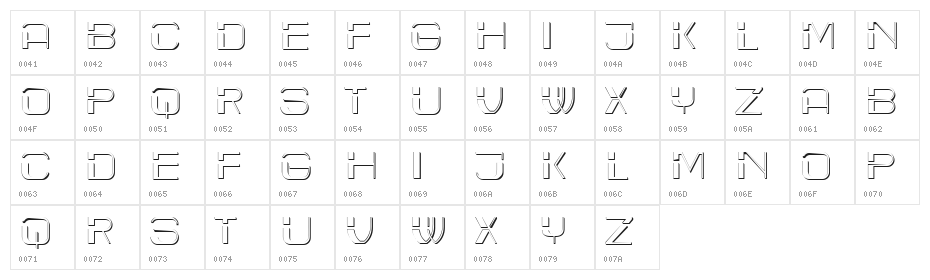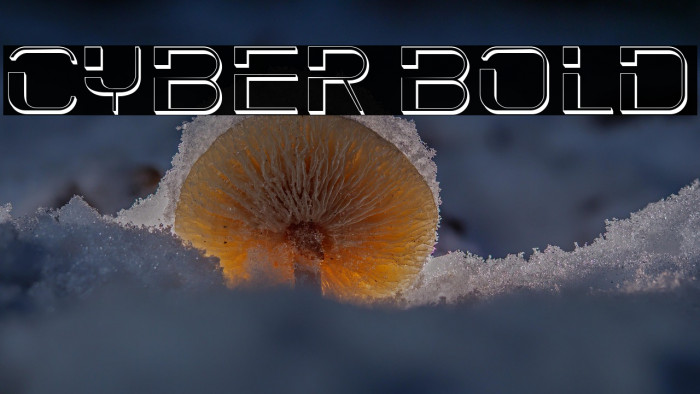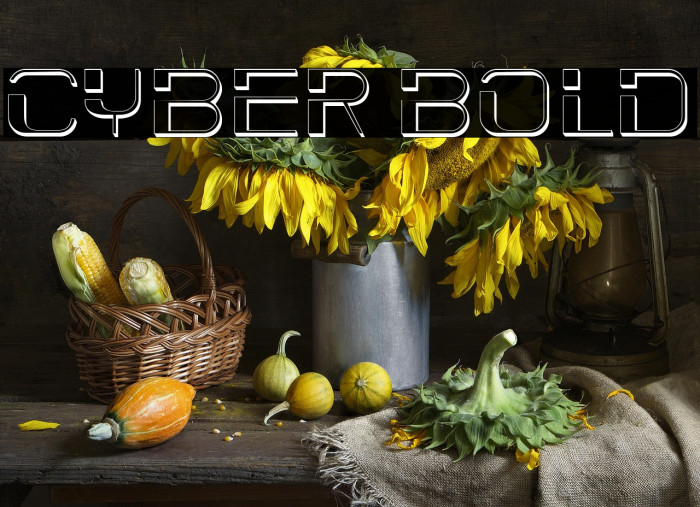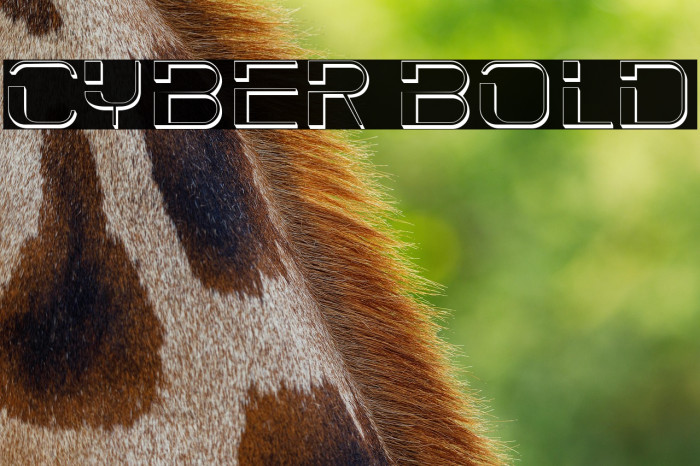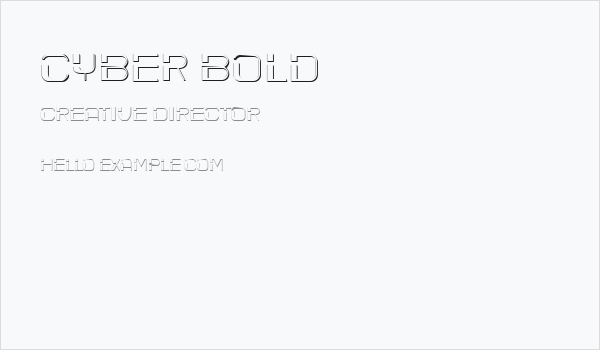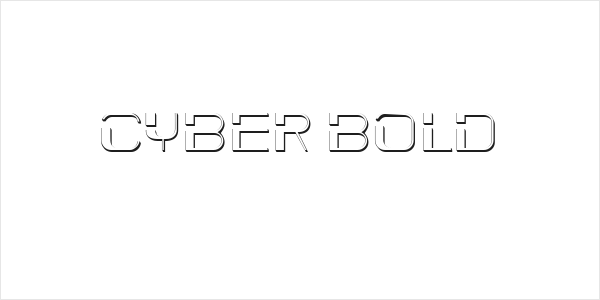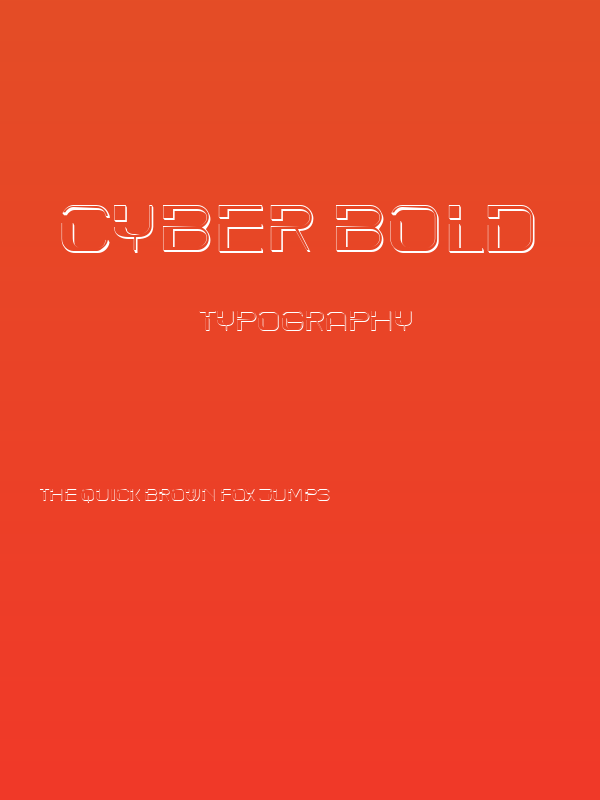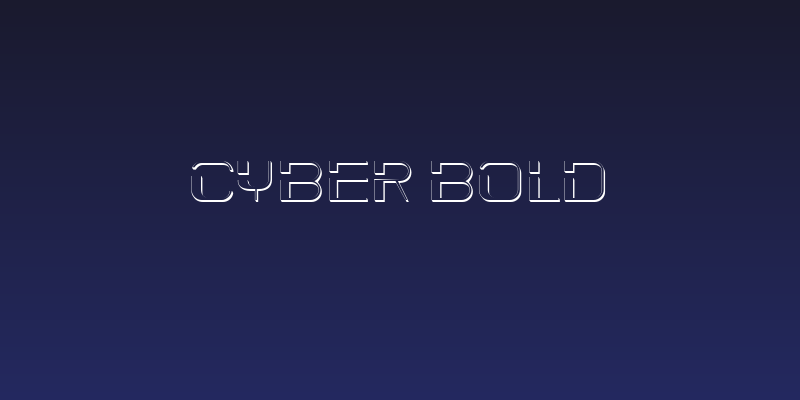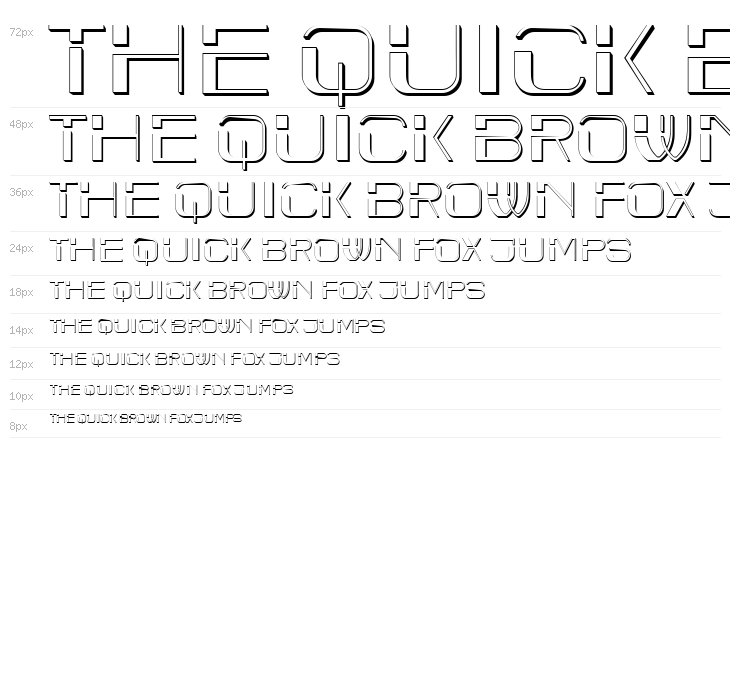
Cyber Bold Font
Cyber Bold Description
This font features a futuristic and geometric design, characterized by its bold and angular letterforms. The characters are constructed with clean, straight lines and sharp edges, giving it a distinctly modern and digital appearance. The font has a unique, stencil-like quality, with breaks in the strokes that add to its tech-inspired aesthetic. It is highly legible and makes a strong visual impact, suitable for projects that require a contemporary and edgy look. The uppercase letters are uniform in height, and the overall design is consistent, making it versatile for various applications.
| Proposed Projects | Ideal for technology branding, sci-fi themed designs, video game titles, and modern advertising. |